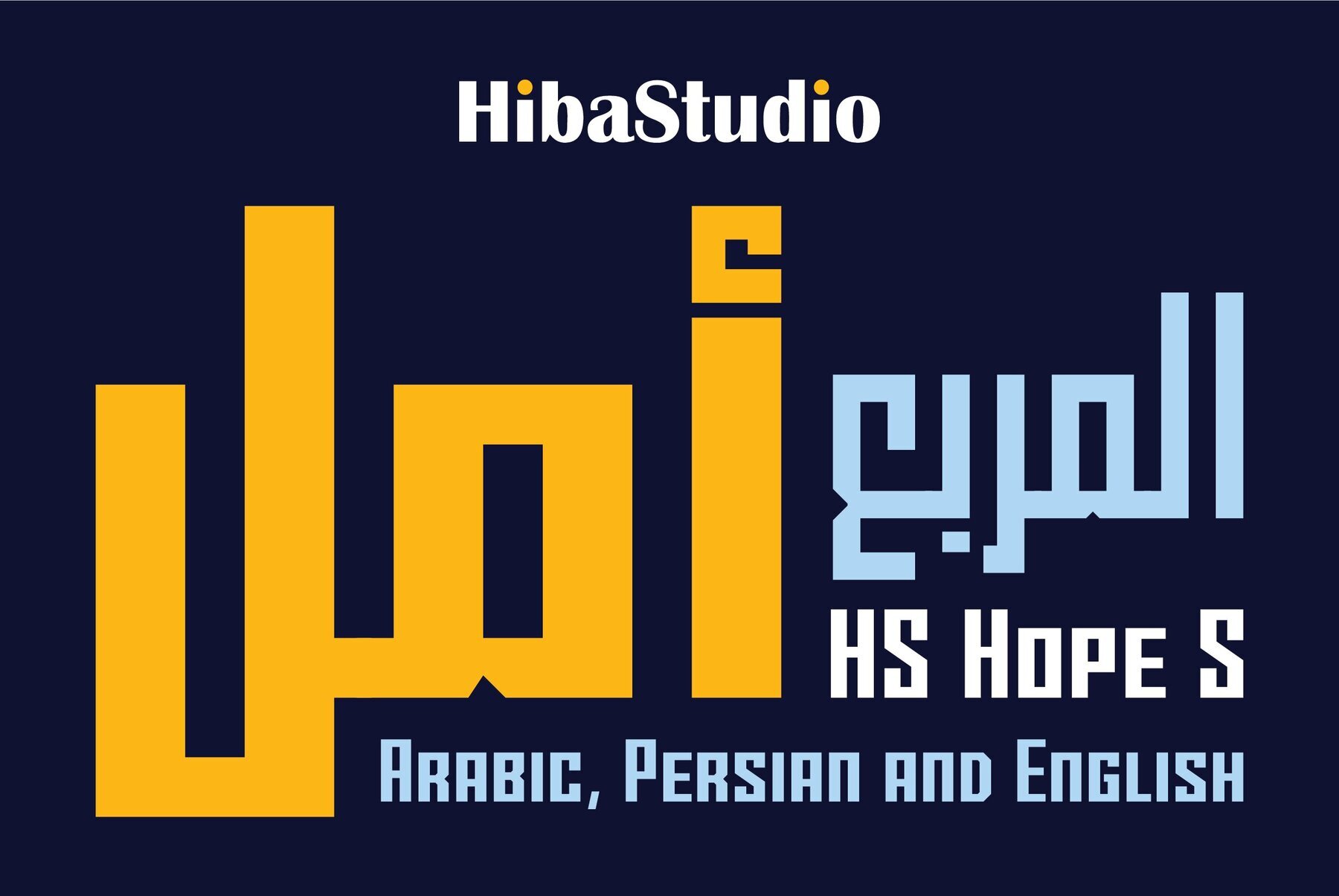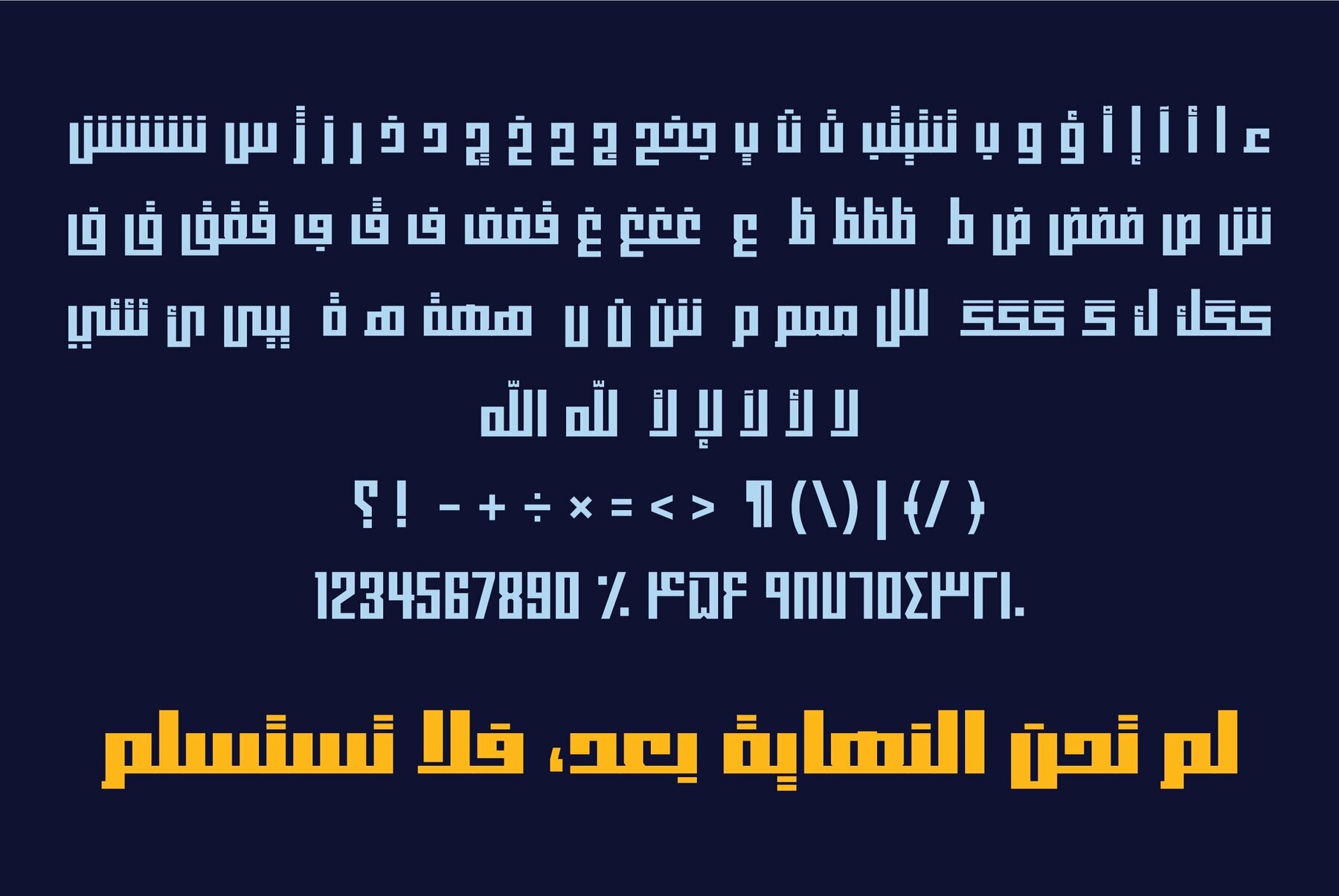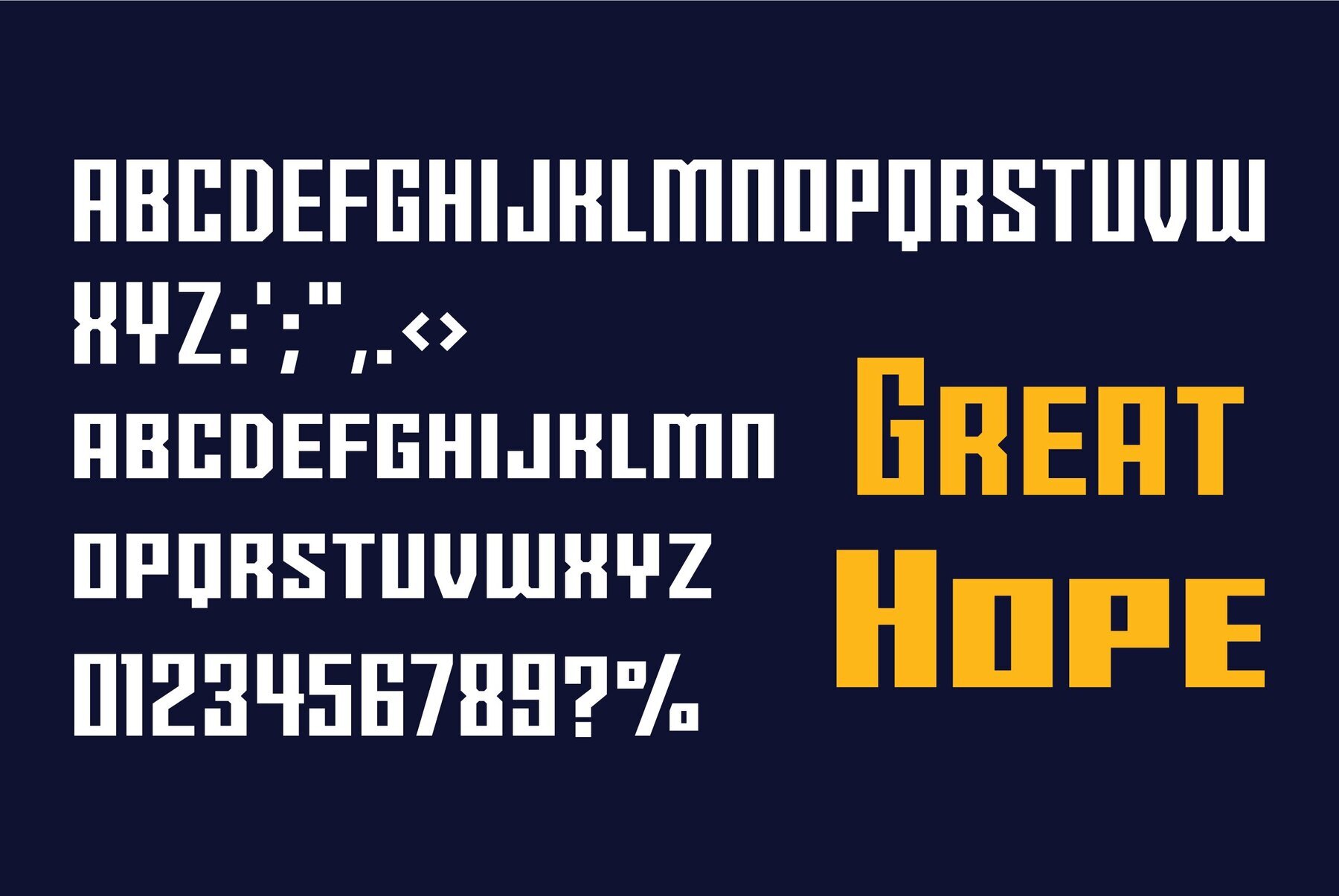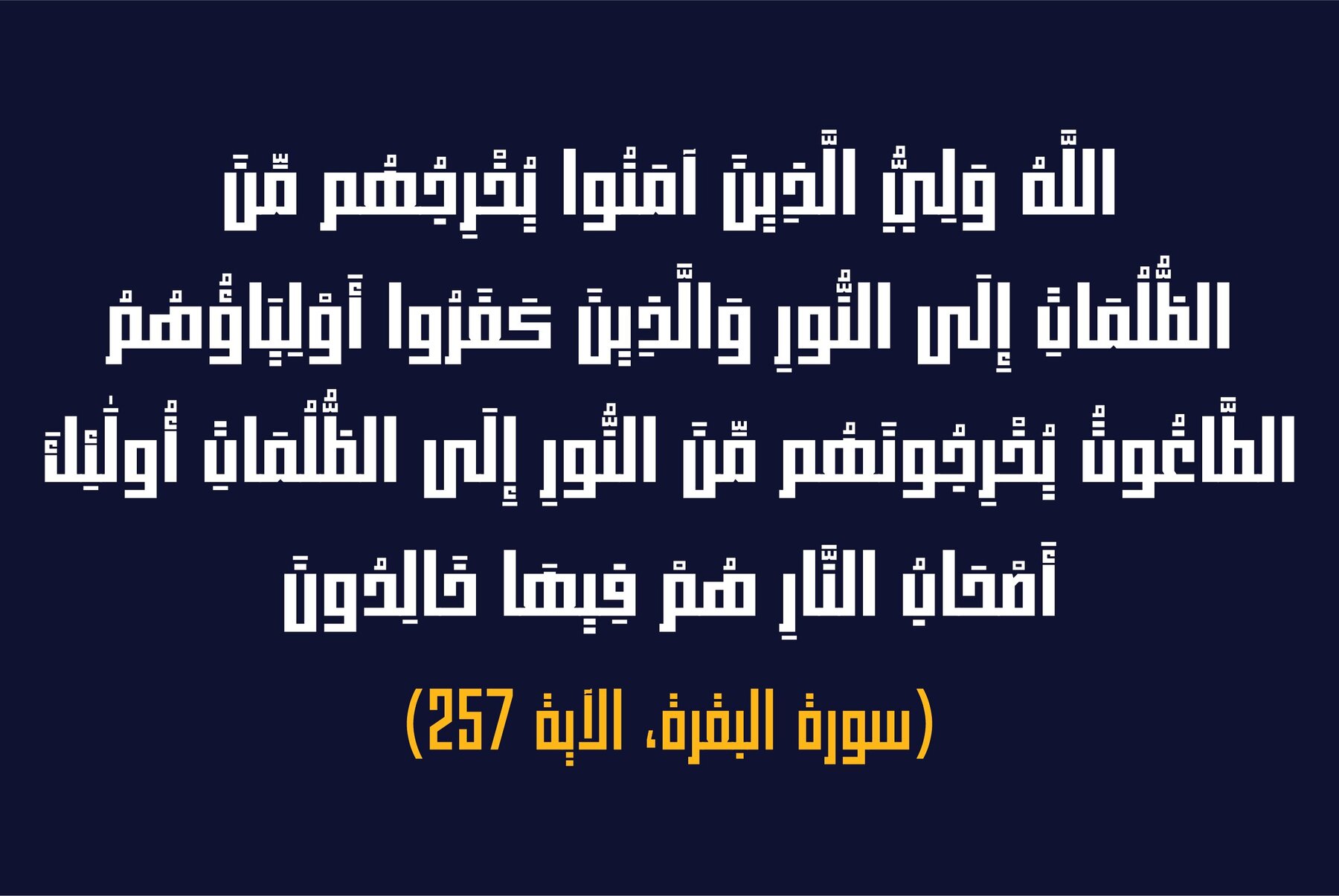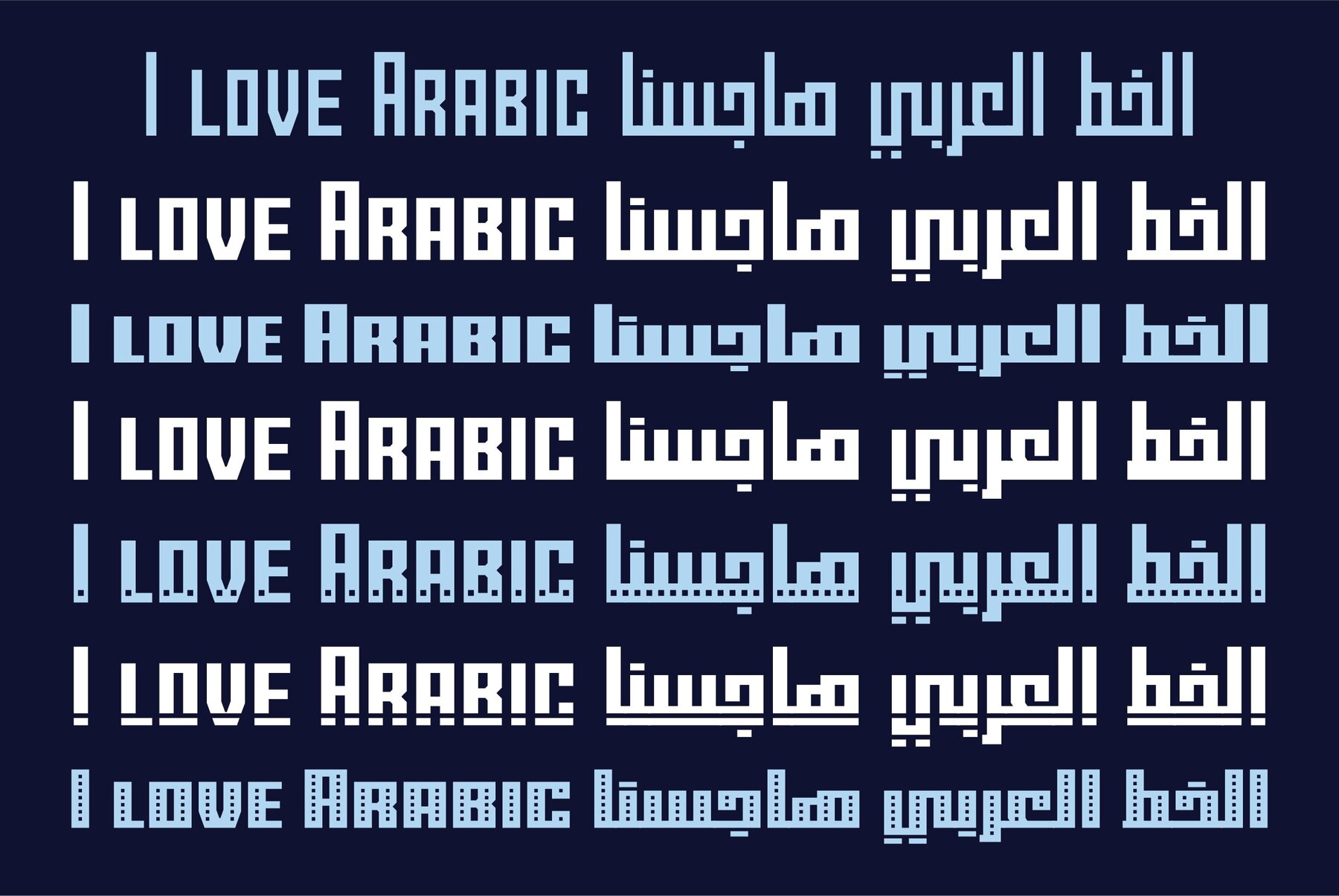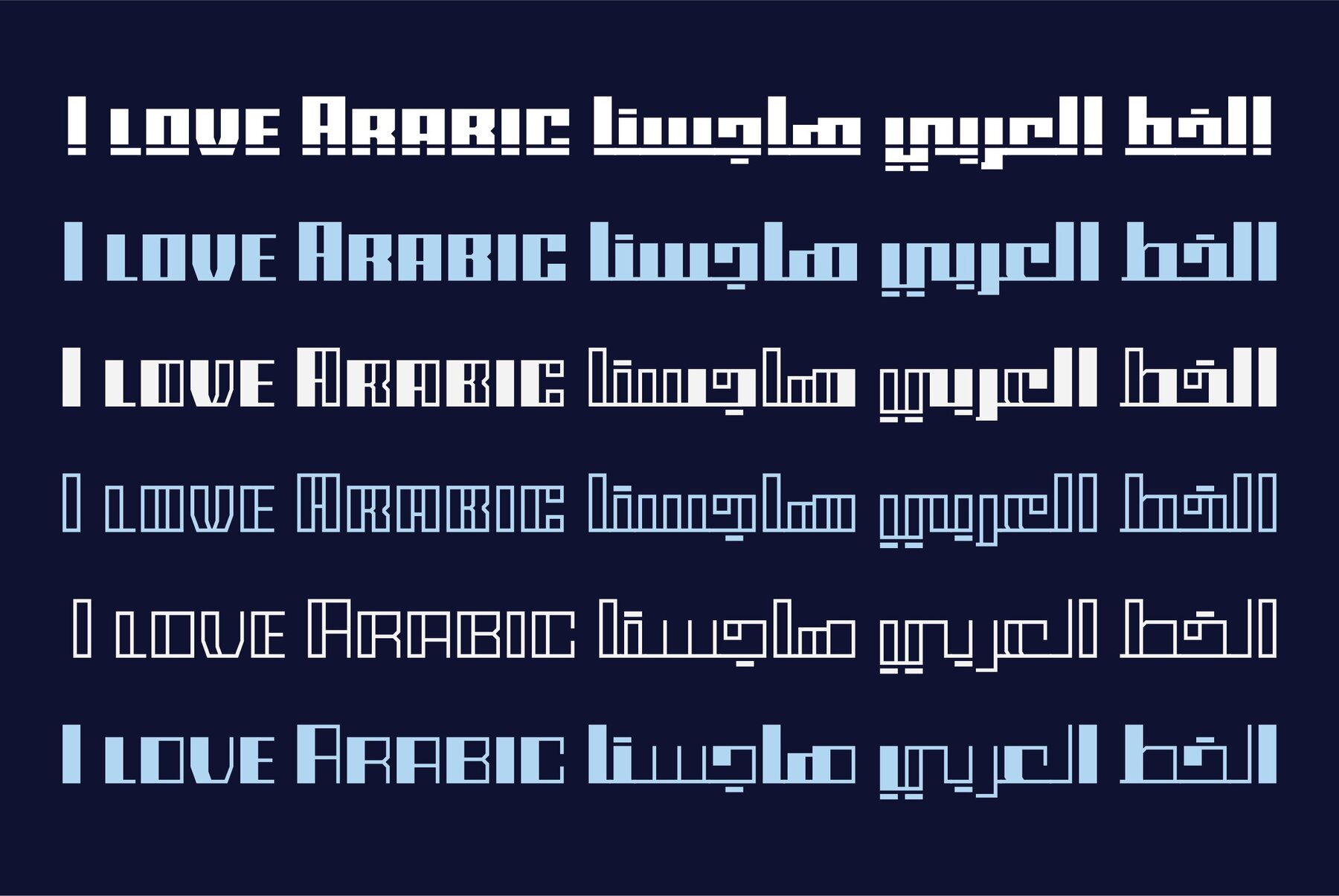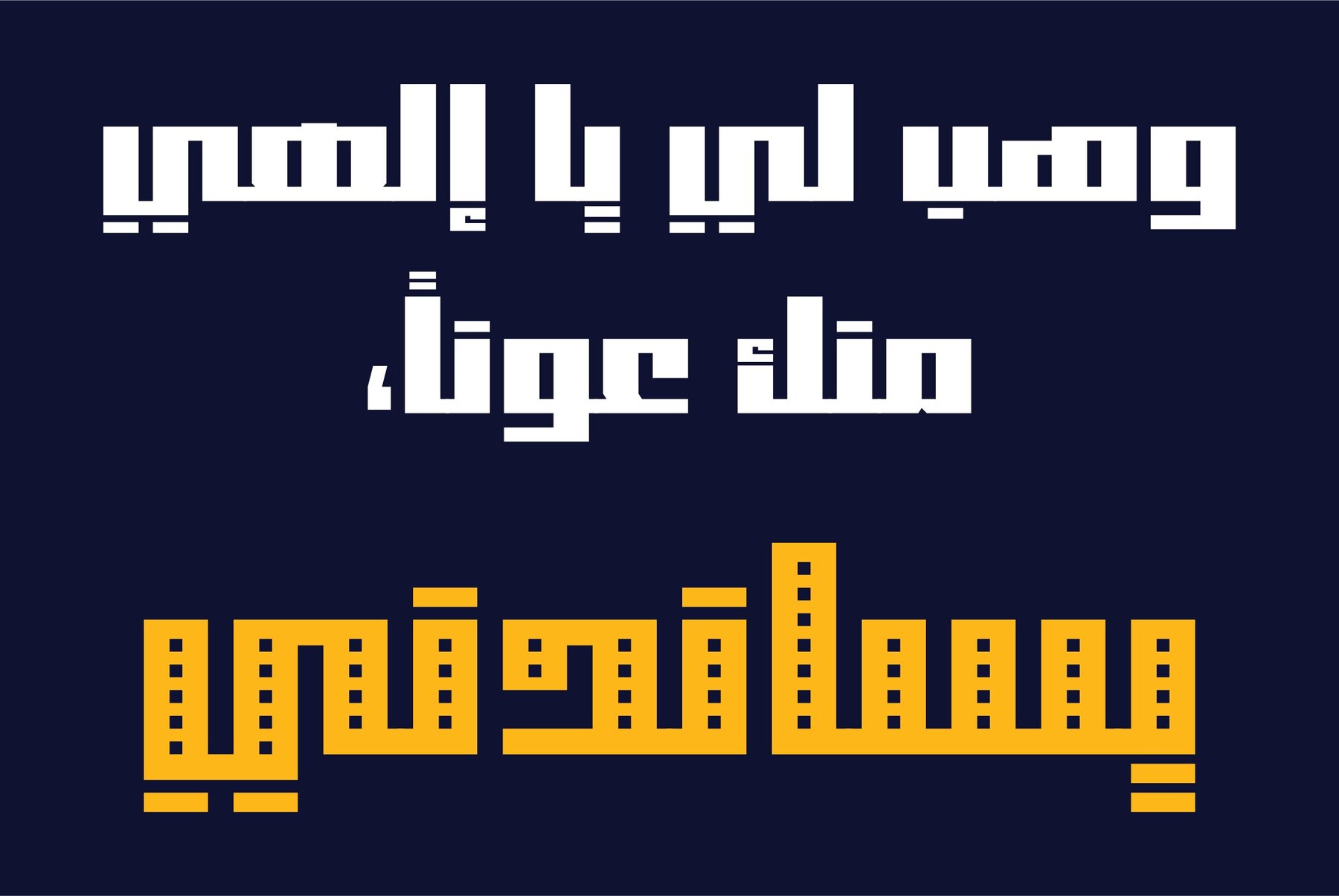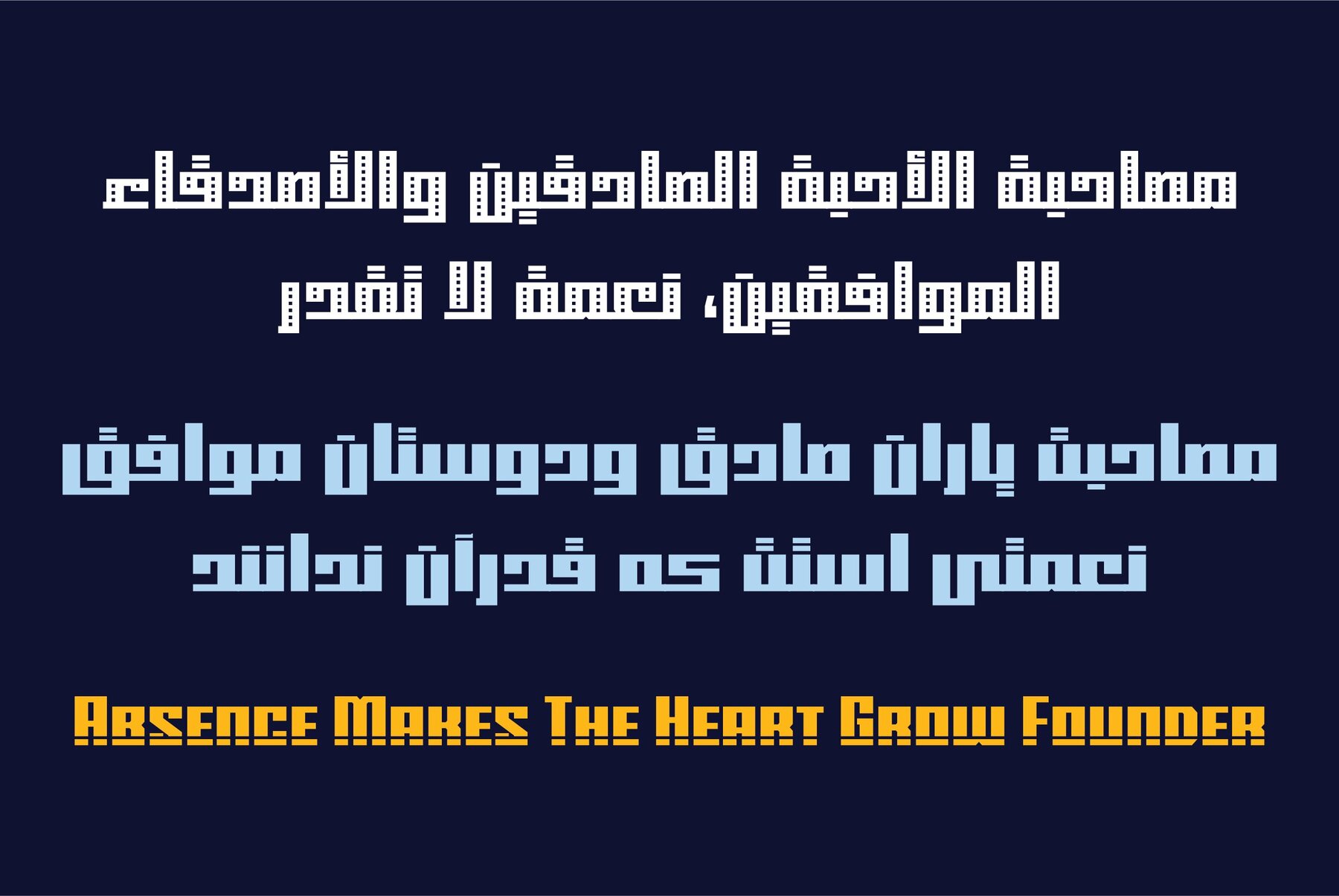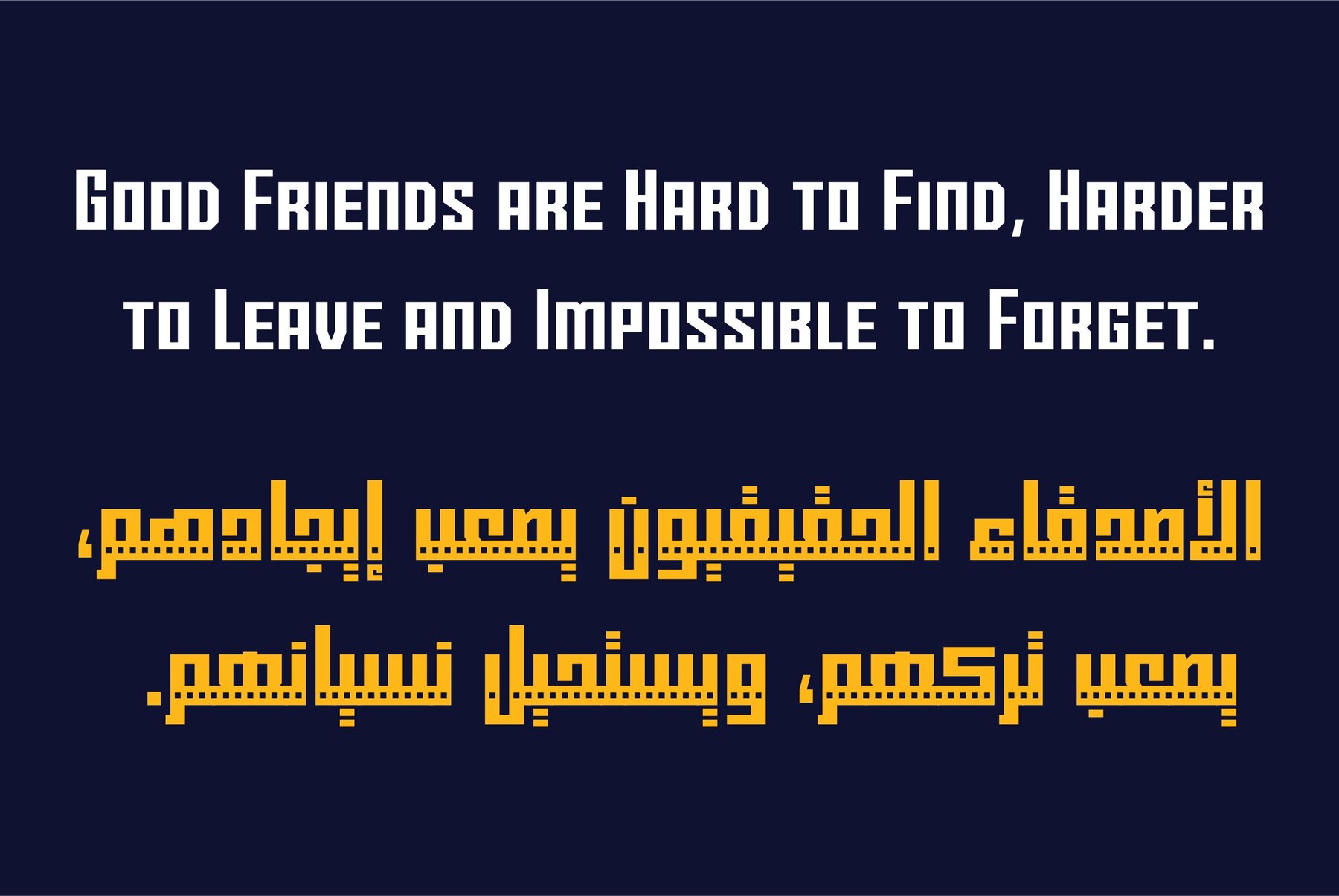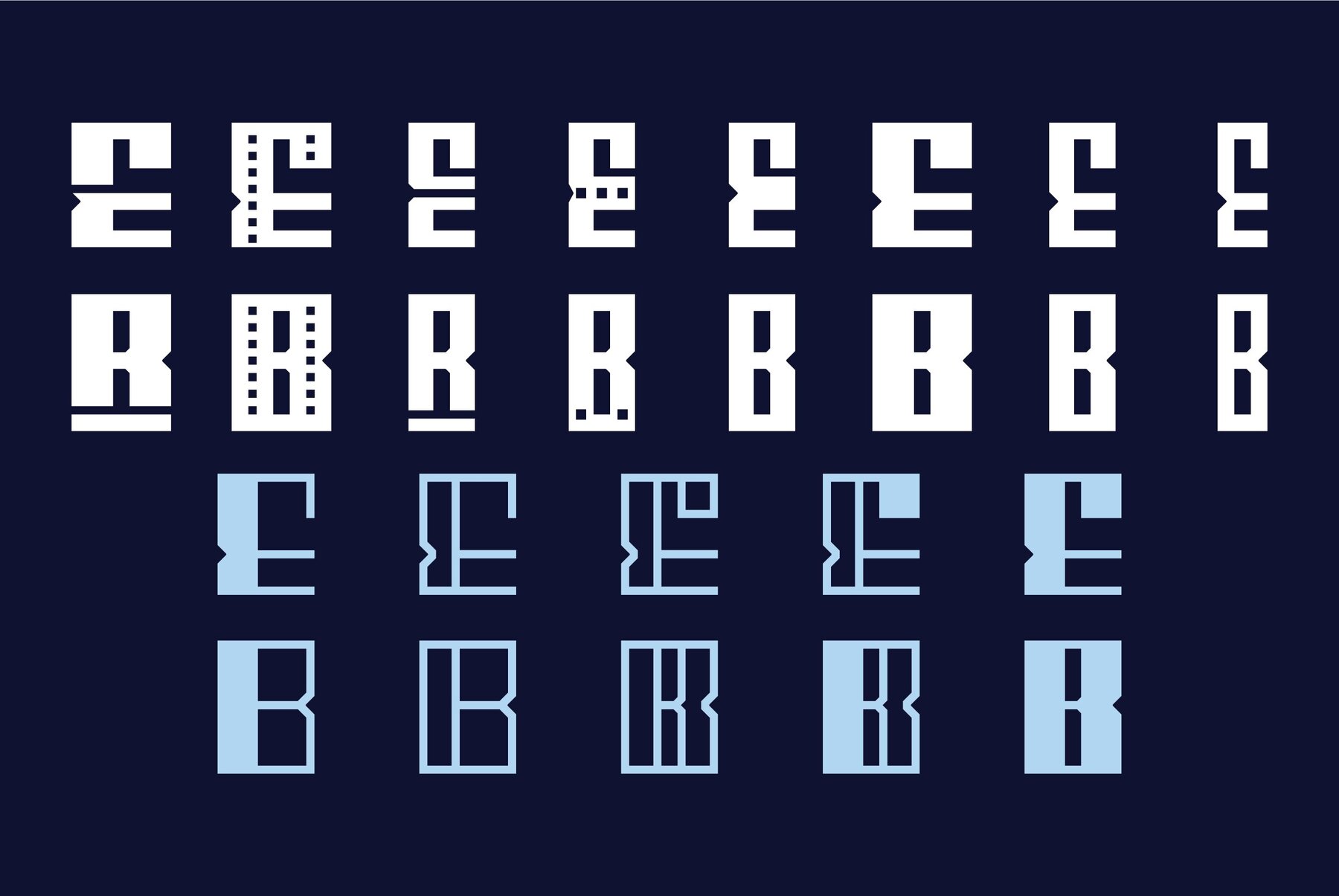
HS Hope S Font
Discover the sharpness and modernity of HS Hope S, a geometric Arabic Latin typeface crafted for designers seeking precision in their work. Rooted in the geometric Kufi style, this typeface delivers clarity and balance, making it ideal for diverse layouts. HS Hope S is perfect for branding, editorial titles, and digital designs, seamlessly combining elegance with a strong visual identity.HS Hope S: A Geometric Typeface for Precision Design
Distinct Features